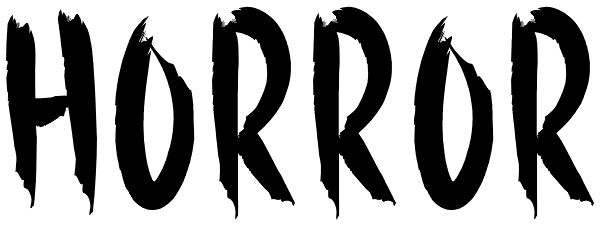
Horror
Horror is, as its name suggests, a terribly great expressive typography to illustrate topics such as: nocture atmosphere, horror, zombie movie, hard rock, festival, halloween ... Accompanied many ornaments you can easily illustrate these themes.